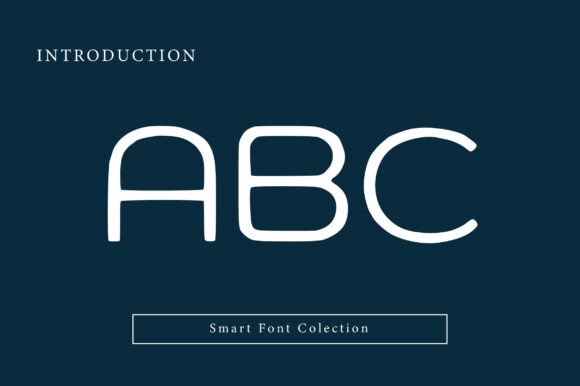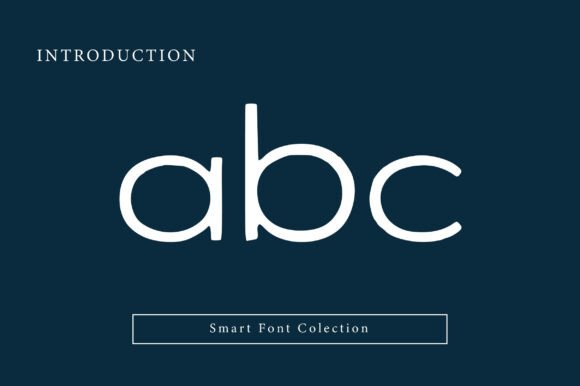
Introduction to Lemora Font Font
Fonts play a crucial role in design, and the Lemora Font font is a typeface that brings both character and versatility to any project. Whether you’re working on a branding project, a website, or a print design, the Lemora Font font offers a unique style that can elevate your work.
Lemora is a modern rounded sans-serif typeface with a soft, minimal, and friendly personality.
Its smooth curves, open letterforms, and consistent stroke weight make it perfect for contemporary branding, digital products, logos, UI/UX design, mobile apps, and creative headlines Lemora balances elegance with approachability, offering excellent readability while maintaining a distinctive, modern aesthetic.
Key Features of Lemora Font Font
Why Choose Lemora Font Font?
The Lemora Font font is more than just a typeface – it’s a design tool that helps you communicate your message with style and clarity. Its unique character set and versatile design make it suitable for a wide range of applications, from elegant invitations to bold headlines.
With its carefully crafted letterforms and balanced proportions, the Lemora Font font ensures readability and visual appeal across all mediums.
What makes Lemora Font font special?
The Lemora Font font stands out with its unique design, exceptional readability, and versatility across various design applications.